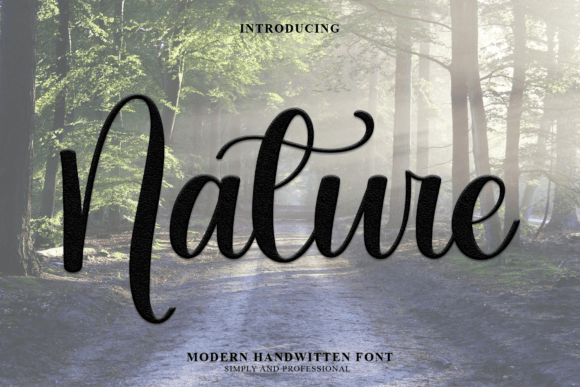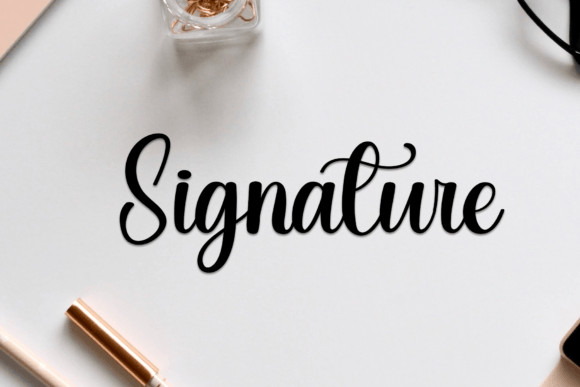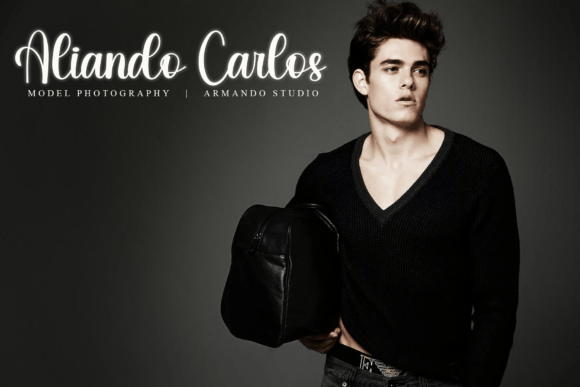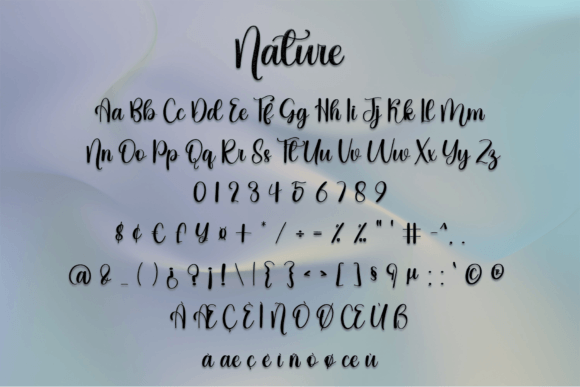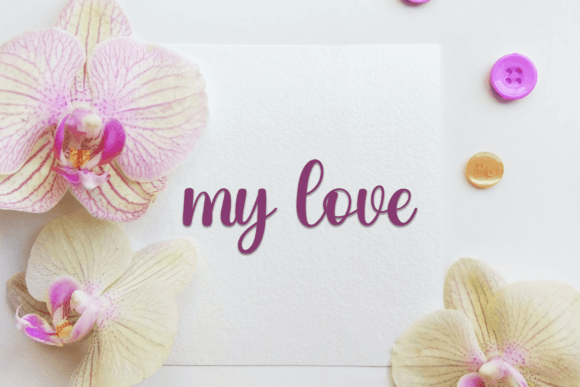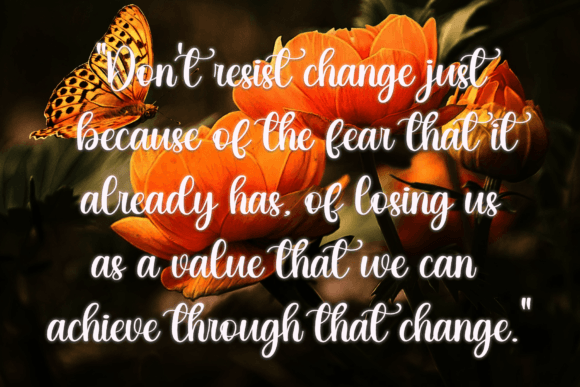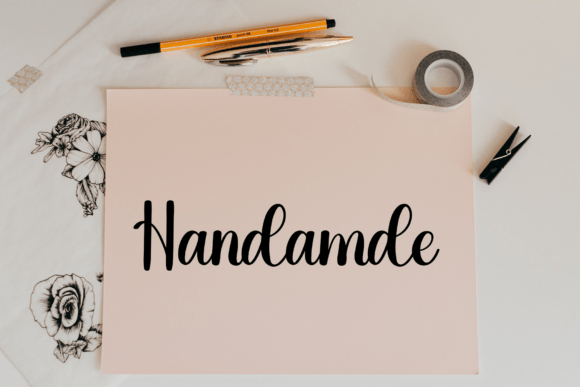
Nature Font
About Nature Font
“Nature” is a unique, round-lettered handwritten font that has been carefully crafted to enhance a variety of projects. This font brings a distinctive and stylish look, making it well-suited for applications such as writing titles, invitations, letters, and more.
The round-lettered style of “Nature” adds a touch of uniqueness and character to your designs. Whether you’re creating titles for creative projects or designing invitations for special occasions, this font brings a distinct and eye-catching quality to your text.
Imagine using “Nature” to infuse your designs with a playful and creative vibe. The round letters contribute to a visually appealing and cohesive look, making it suitable for a range of products and design projects.
As you incorporate “Nature” into your designs, you’ll appreciate the careful craftsmanship of the round letters that contribute to its overall aesthetic. The font’s versatility allows it to seamlessly adapt to different types of products, making it a valuable asset for a variety of creative endeavors.
Whether you’re working on digital graphics, print materials, or any other design project, “Nature” invites you to explore its unique and round-lettered style. It becomes a distinctive element in your designs, ensuring that your titles and text stand out with a touch of character and creativity, reminiscent of the beauty found in nature.